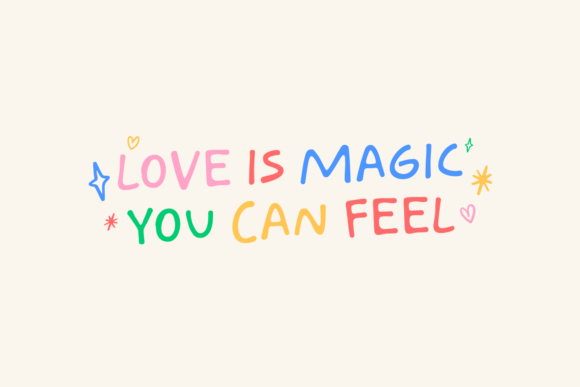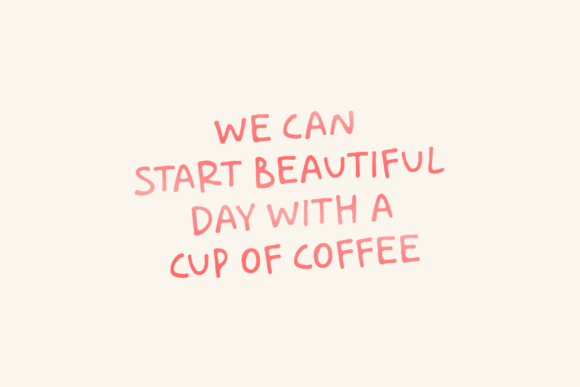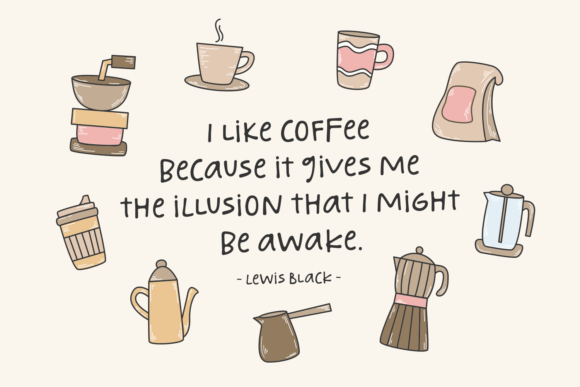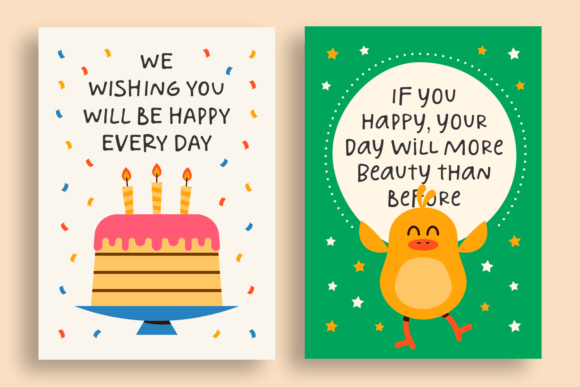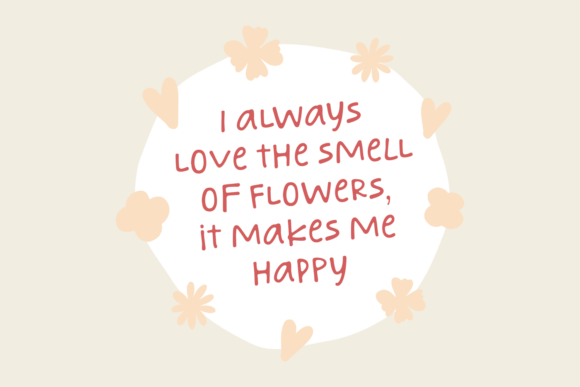
Adding a Personal Touch to Your Designs
As a designer, there’s nothing quite like the thrill of bringing a concept to life. It’s that moment when all the pieces fall into place, and you know you’ve created something truly special. For many of us, it’s the little details that make a design truly stand out – the perfect font, the right color palette, the subtle texture that adds depth and interest. And that’s where the Angelia Notes Font comes in – a fun and lively handwritten font that’s perfect for adding a cheerful touch to your designs.
Angelia Notes Font is a beautiful, hand-written font that captures the feeling of jotting down notes on a piece of paper. It’s playful, easy to read, and adds a touch of whimsy to any design. Whether you’re creating a social media post, a flyer, or a logo, this font is sure to bring a smile to your audience’s face. And for designers, it’s a valuable tool for adding a personal touch to our work – a way to connect with our audience on a deeper level and make our designs truly memorable.
Angelia Notes Font Key Features
- Font Family: Angelia Notes, a script font designed to mimic handwritten notes.
- Unique Characteristics: Features a natural, organic feel with subtle variations in letterforms, giving it a personal touch.
Angelia Notes Font Review
As a designer, I was excited to dive into the Angelia Notes Font. Here’s my honest review:
- Unique and elegant design: Angelia Notes Font has a distinctive, handwritten feel that’s perfect for creative projects.
- Good legibility: The font is easy to read, even at smaller sizes, making it suitable for body text and titles.
- Good support for various languages: Angelia Notes Font covers a wide range of languages, making it a great choice for international projects.
- Limited font weights: The font only comes in a few weights, which may limit its versatility in certain designs.
- No italic or oblique styles: If you need to use italic or oblique text, you’ll need to use a different font or get creative with layering.
- Not ideal for large blocks of text: Due to its handwritten nature, Angelia Notes Font may not be the best choice for large bodies of text, as it can be tiring to read.
Overall, I think Angelia Notes Font is a great addition to any designer’s toolkit. While it may have some limitations, its unique design and good legibility make it a great choice for creative projects. Just be mindful of its limitations and use it in contexts where it shines.
Practical Application Guide for Angelia Notes Font
Getting the Most Out of Angelia Notes Font
To get the most out of Angelia Notes Font, use it for designs that require a elegant, handwritten touch. It’s perfect for creating invitations, greeting cards, and other personal stationery. You can also use it for headings and titles in blog posts, social media graphics, and other online content.
Angelia Notes Font is commonly used for:
- Greeting cards and party invitations
- Blog post headings and titles
- Social media graphics and online content
- Personalized gifts and stationery
Alternatives to Angelia Notes Font
Lato is a popular sans-serif font that offers a clean and modern look. It’s ideal for use in digital products, such as websites and mobile applications, where readability is crucial. Lato is more geometric and minimalist compared to Angelia Notes Font, which has a more elegant and handwritten feel. Lato is a good choice when you need a clean and simple font for body text or headings.
Playfair Display is a luxurious and elegant script font that’s perfect for use in high-end branding, invitations, and other materials where sophistication is key. While it shares some similarities with Angelia Notes Font in terms of its elegant feel, Playfair Display is more formal and less playful. Use Playfair Display when you need to convey luxury, elegance, and refinement.
Great Vibes is a modern script font that’s designed to evoke a sense of freedom and playfulness. It’s ideal for use in creative projects, such as branding, packaging, and advertising, where you want to convey a sense of fun and energy. Great Vibes is more casual and expressive compared to Angelia Notes Font, which is more refined and elegant. Use Great Vibes when you need a font that’s fun, energetic, and engaging.